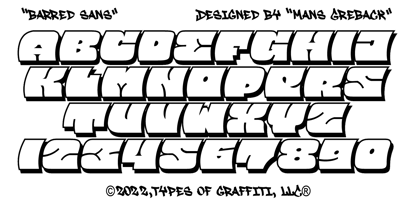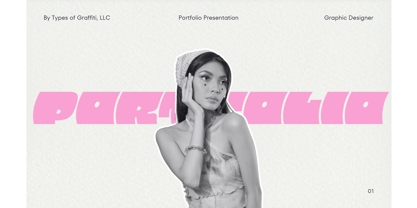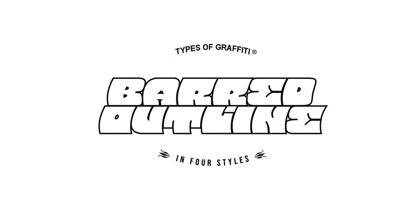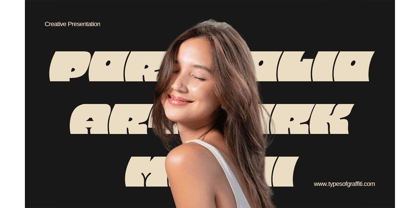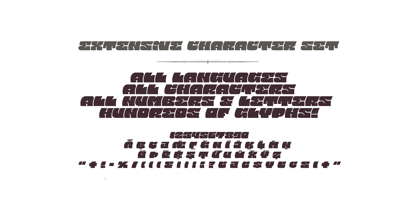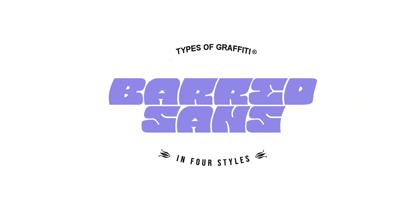
Barred Sans
by Types of Graffiti, LLC
The Barred Sans Font Family was designed by Måns Grebäck and published by Types of Graffiti, LLC. Barred Sans contains 4 styles and family package options. More about this family
Graffiti Inspired Fonts | Barred Sans. This typeface features bold, blocky characters with a unique graffiti touch. Letters are heavily stylized with thick strokes and minimal spacing, creating a strong visual impact. Ideal for posters, logos, and headlines that require a strong, impactful presence. Designed by Måns Grebäck, Published by Types of Graffiti, LLC
Designers: Måns Grebäck
Foundry: Types of Graffiti, LLC